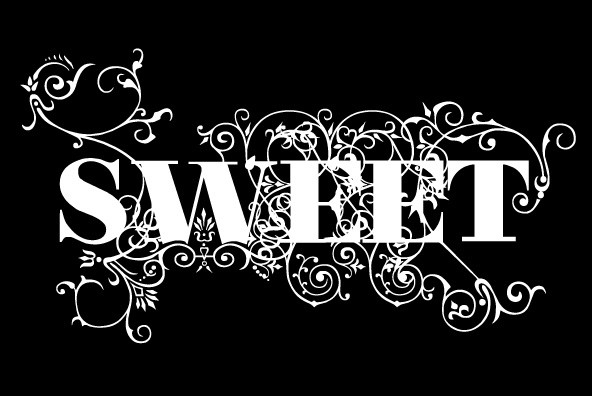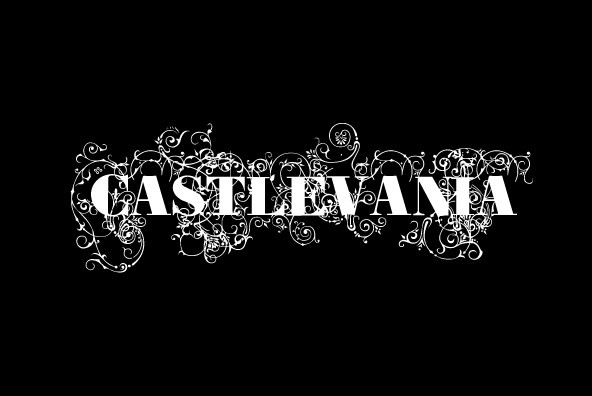
A classic font design remastered by the type foundry Intellecta Design. Distressed and antique, use this font in display purposes for a stylized type design.